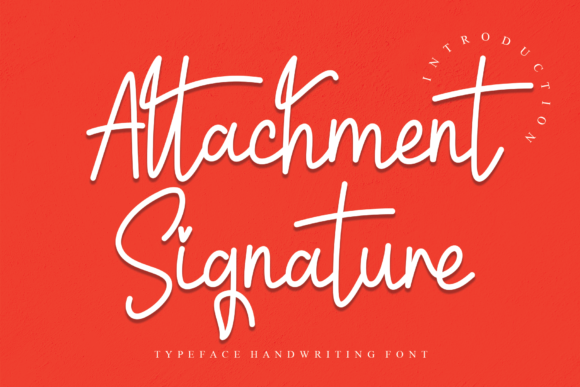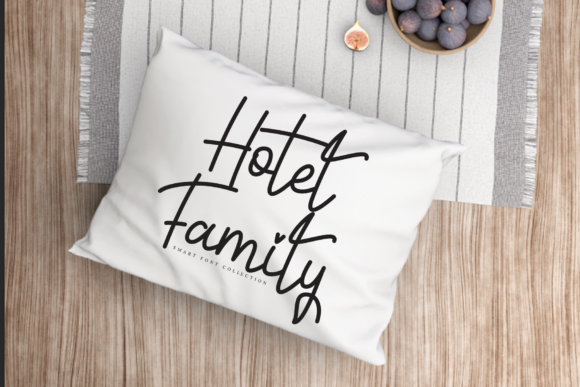
About Attachment Signature Font
Attachment Signature is a thin handwritten font that is readable, delicate and stylish. It is defined by smooth curves and is perfect for fashion branding or editorial designs. Add it confidently to your projects, and you will love the results.